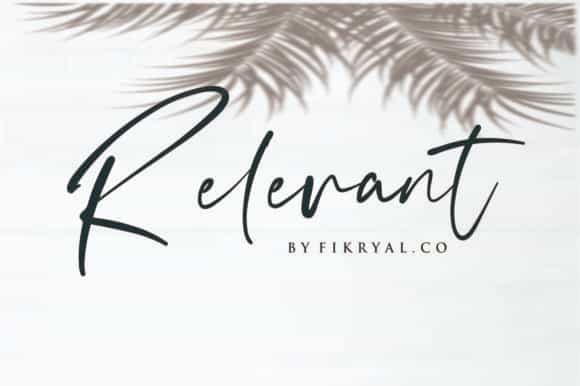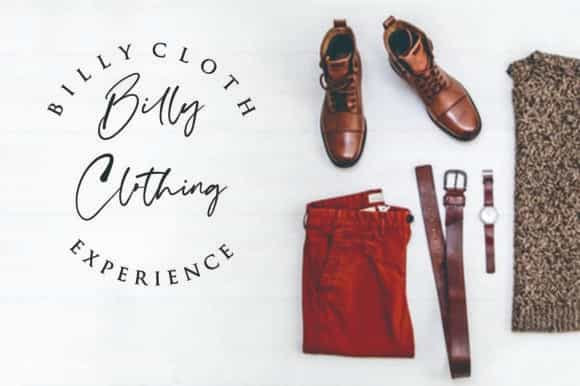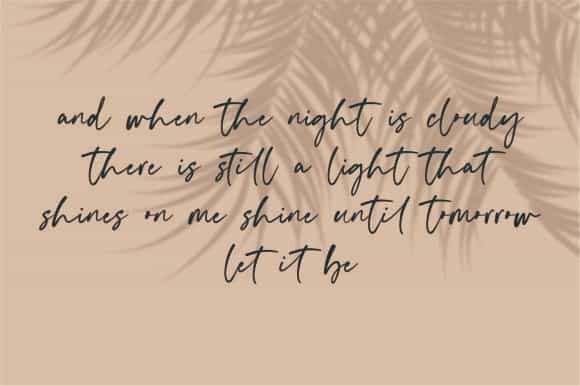
Relevant is a luxurious modern calligraphy font with some handwriting style. Lend your designs an original handmade quality. Relevant Script combines contemporary and classical features, what makes it a very flexible script.